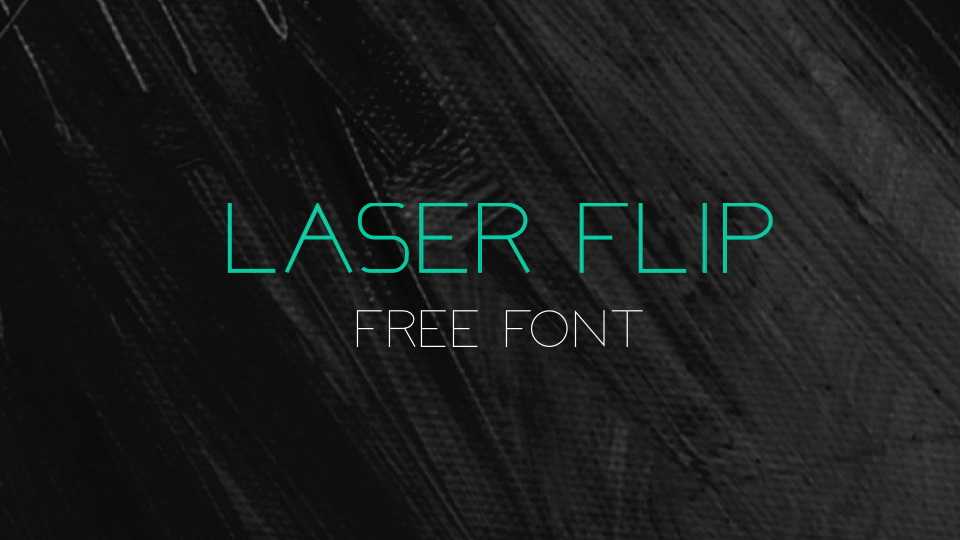
Download Laser Flip font, a clean geometric sans serif display typeface with a minimalist style. Laser Flip font looks great for posters, headlines, short text blocks and other artworks.